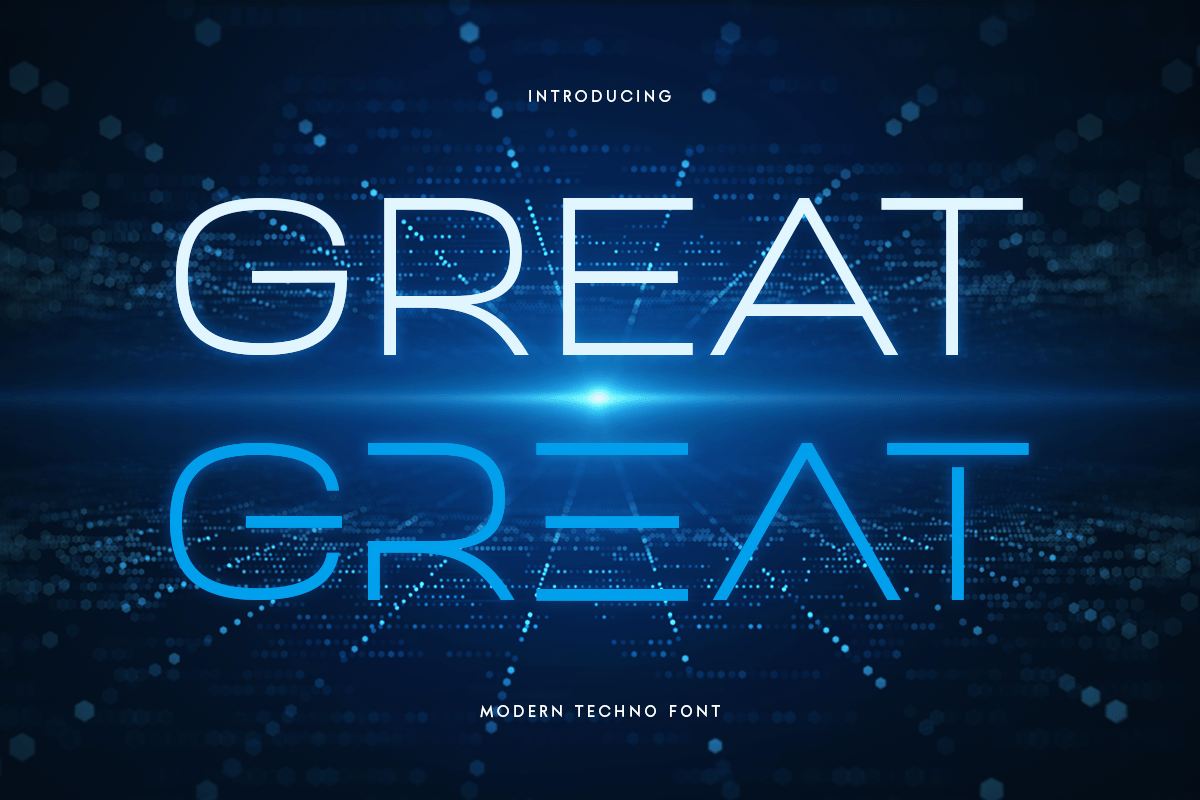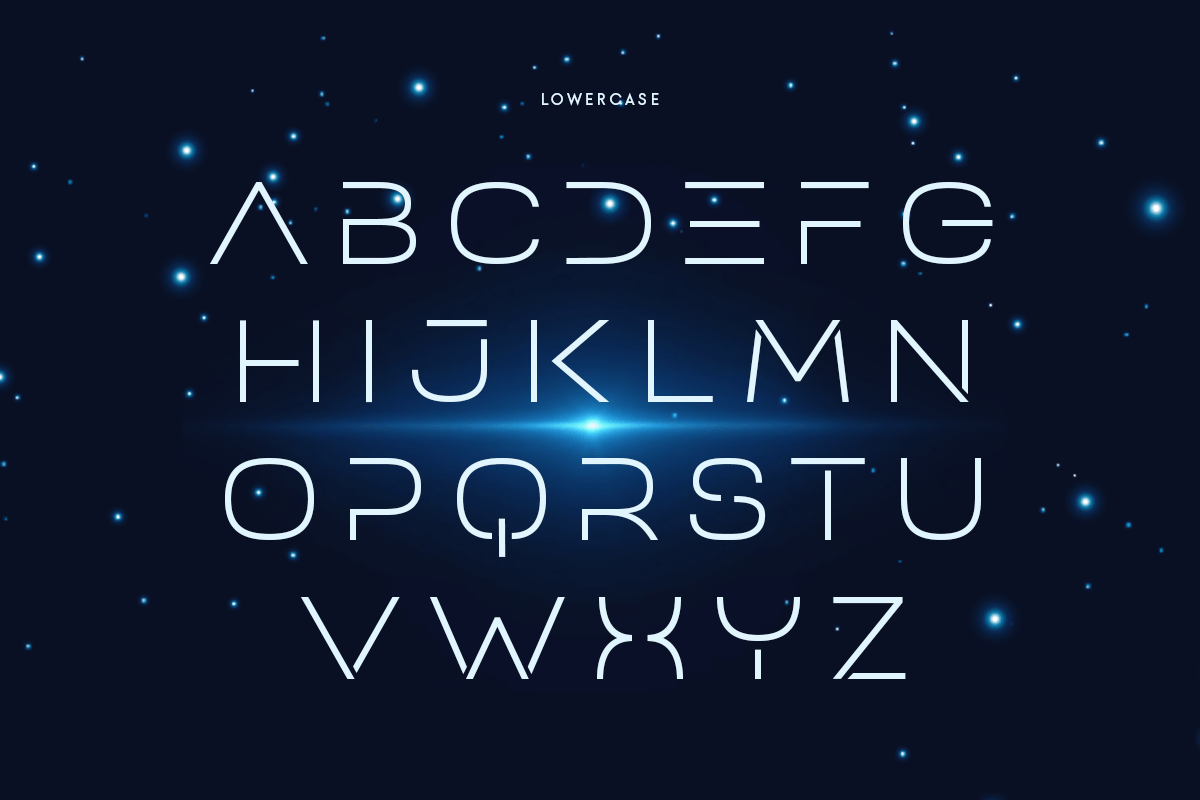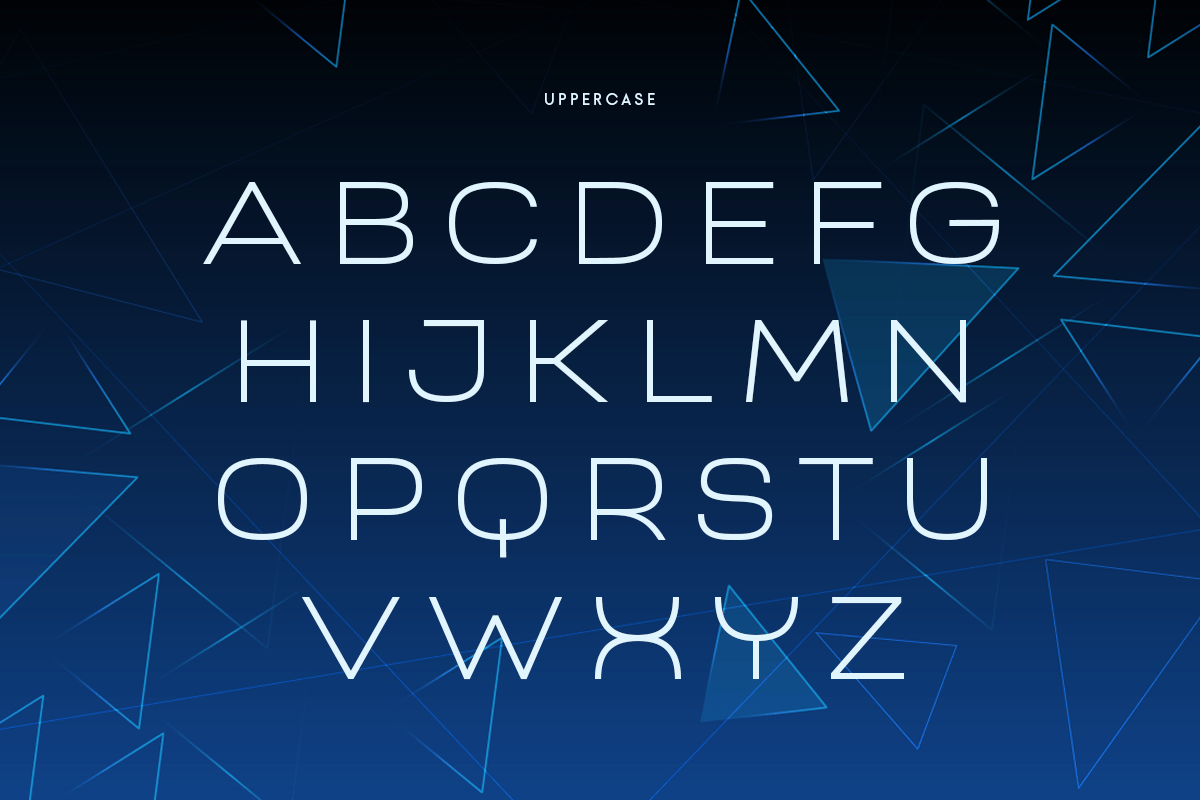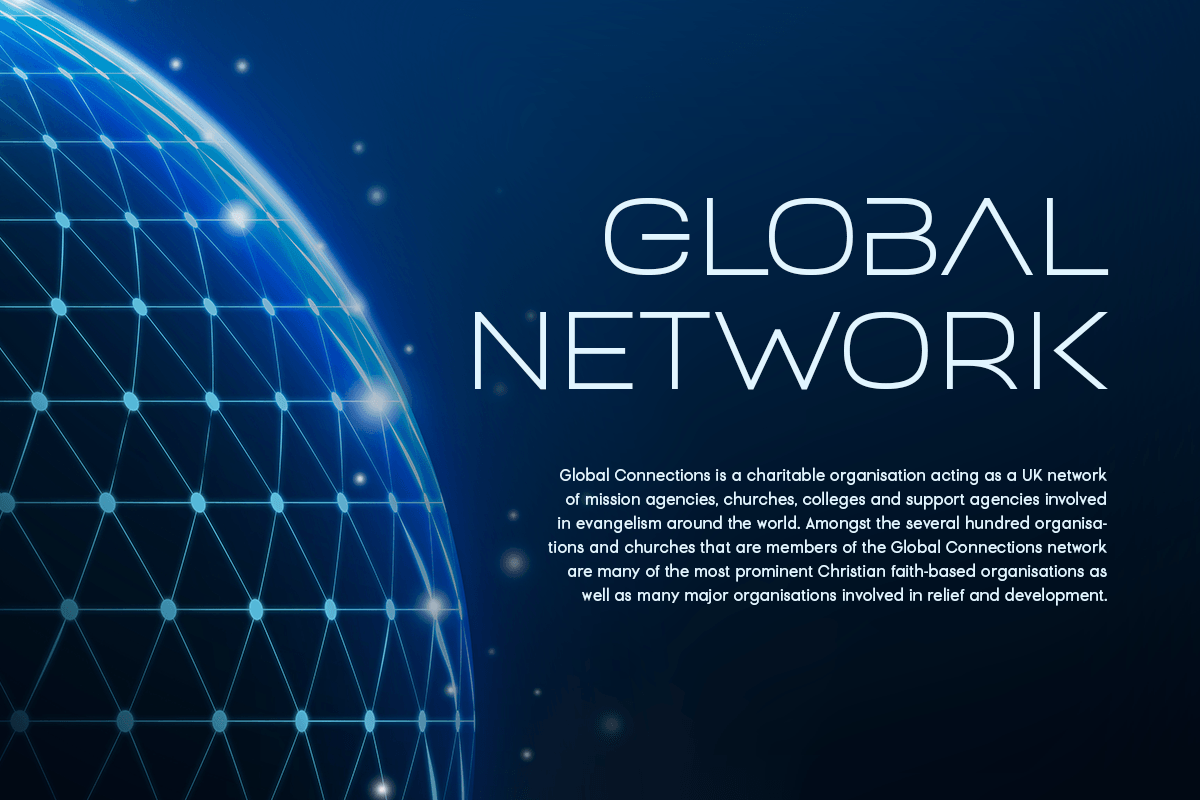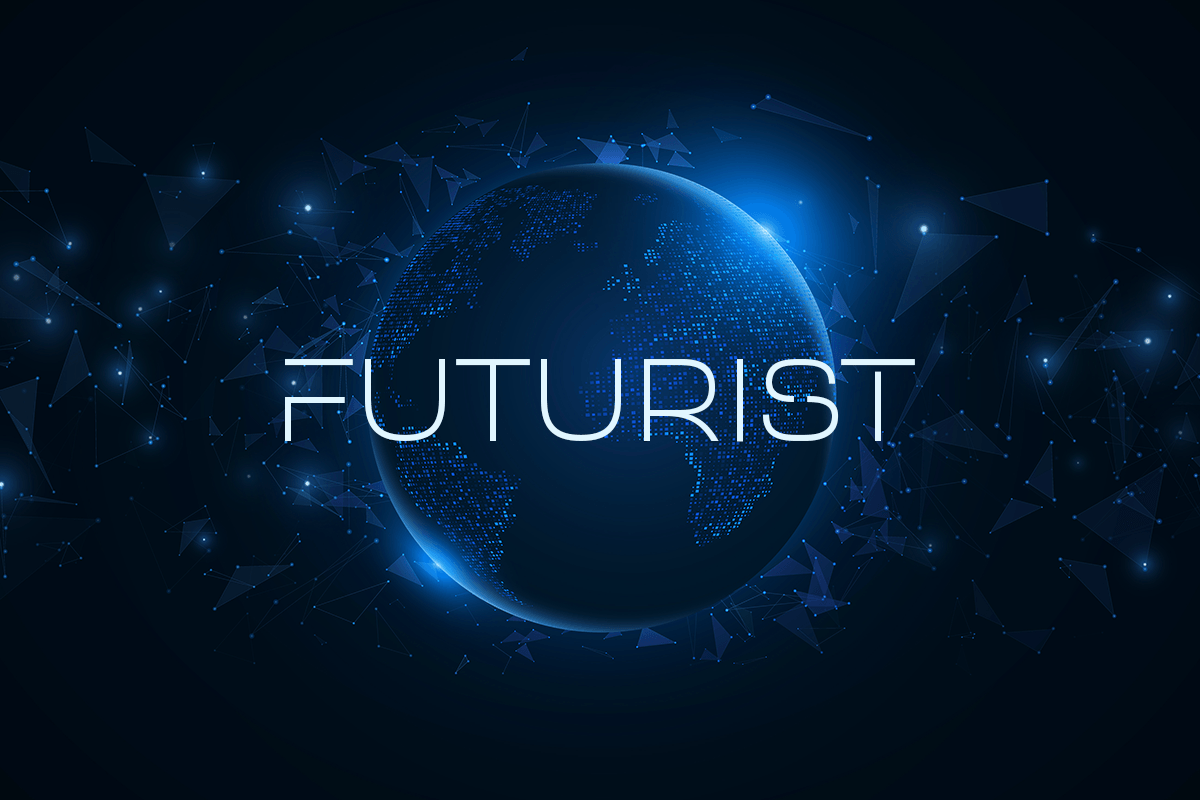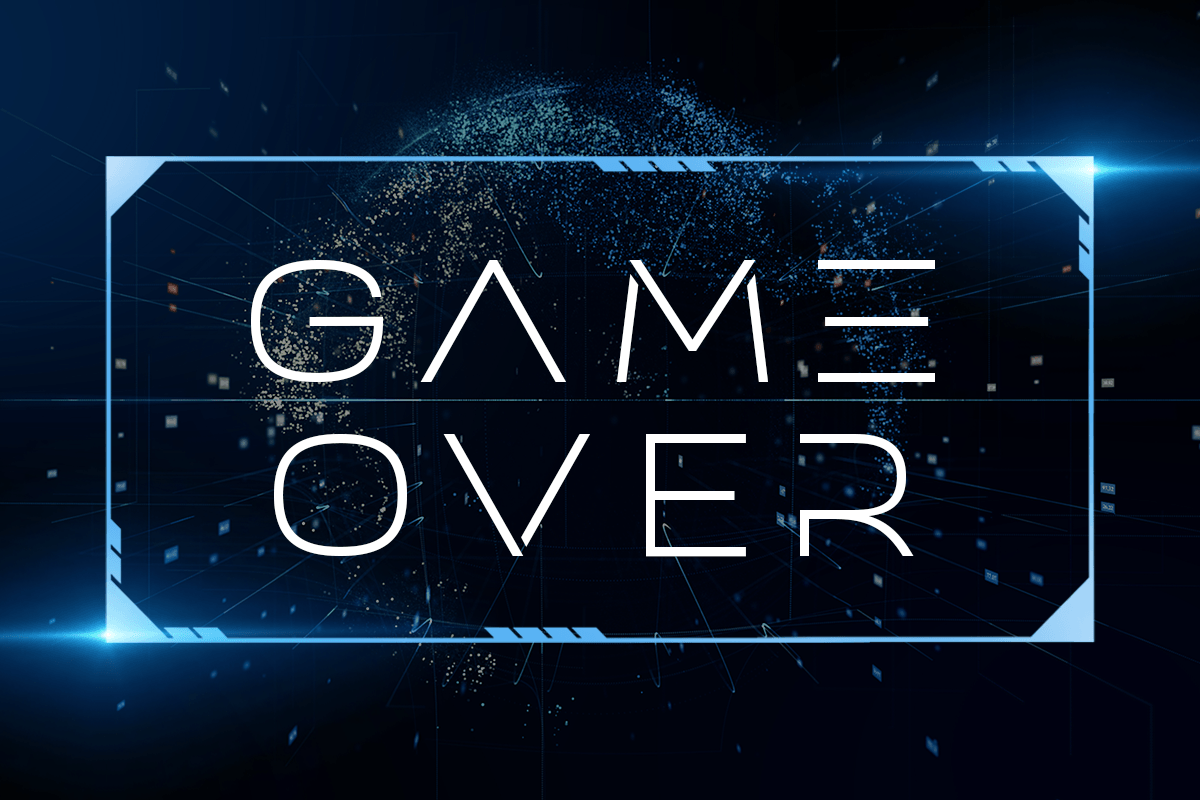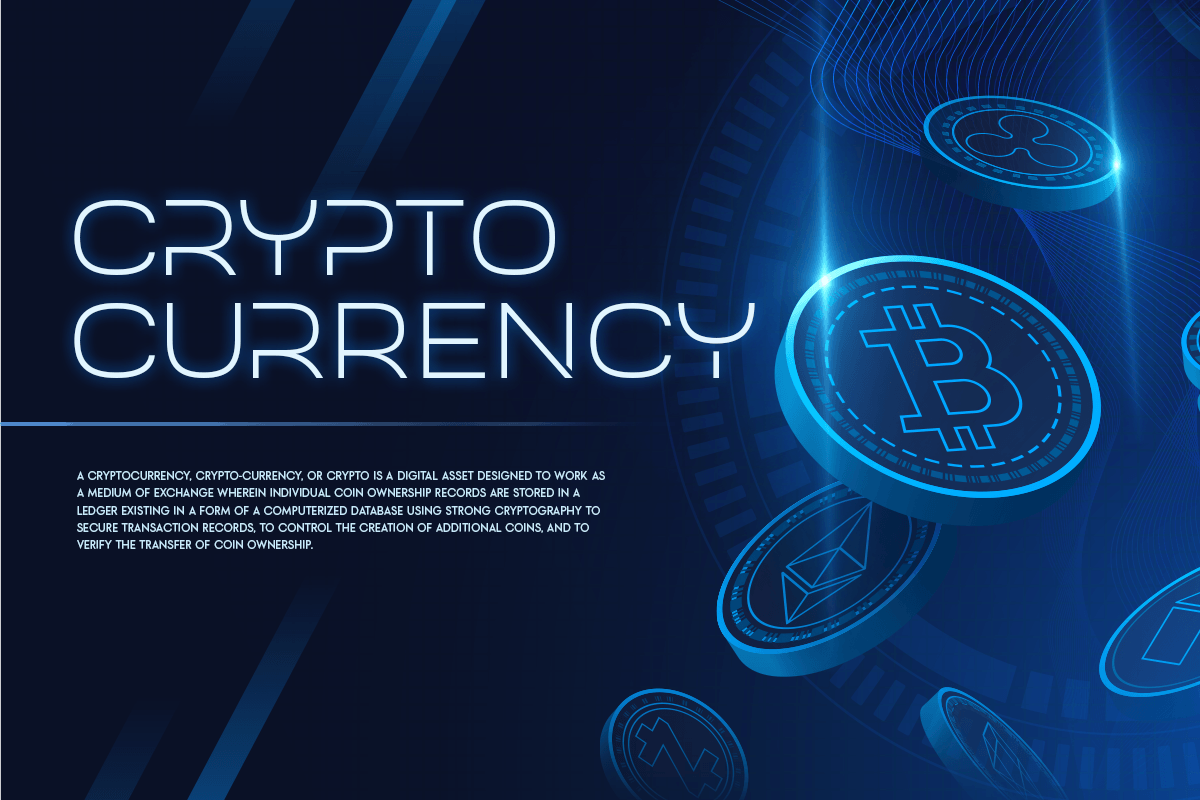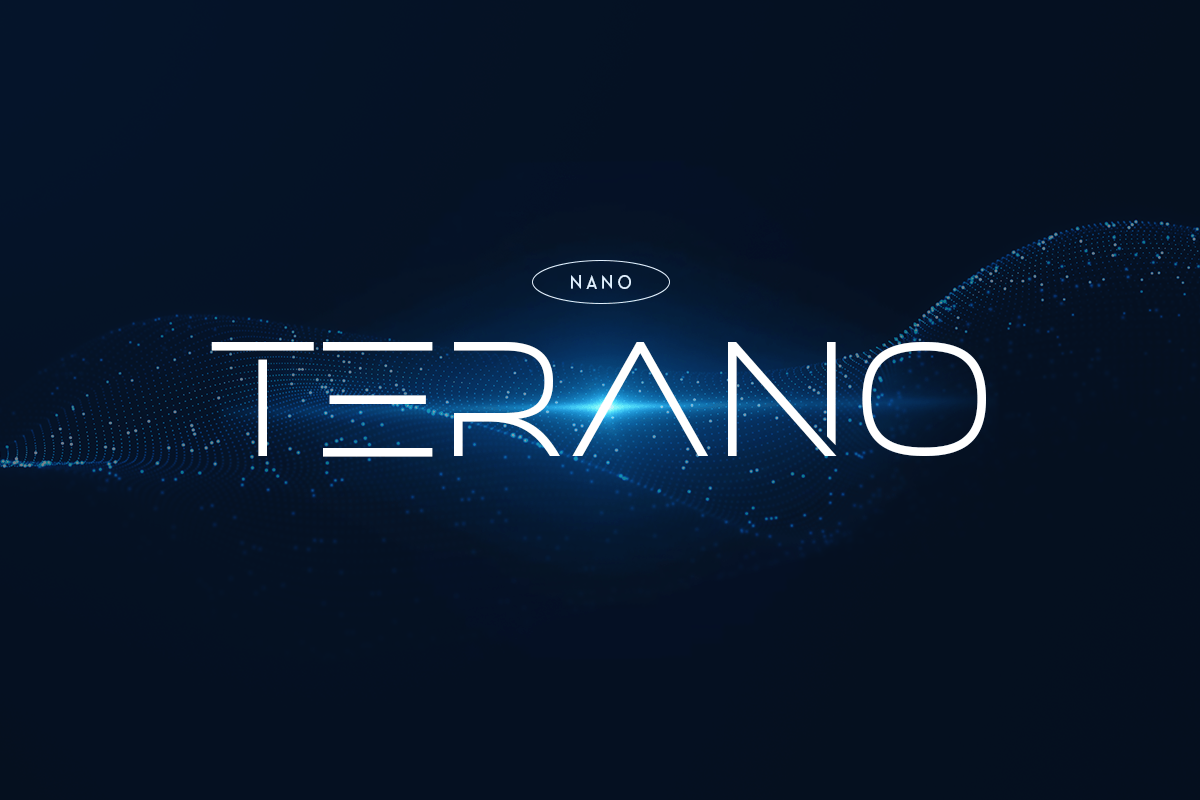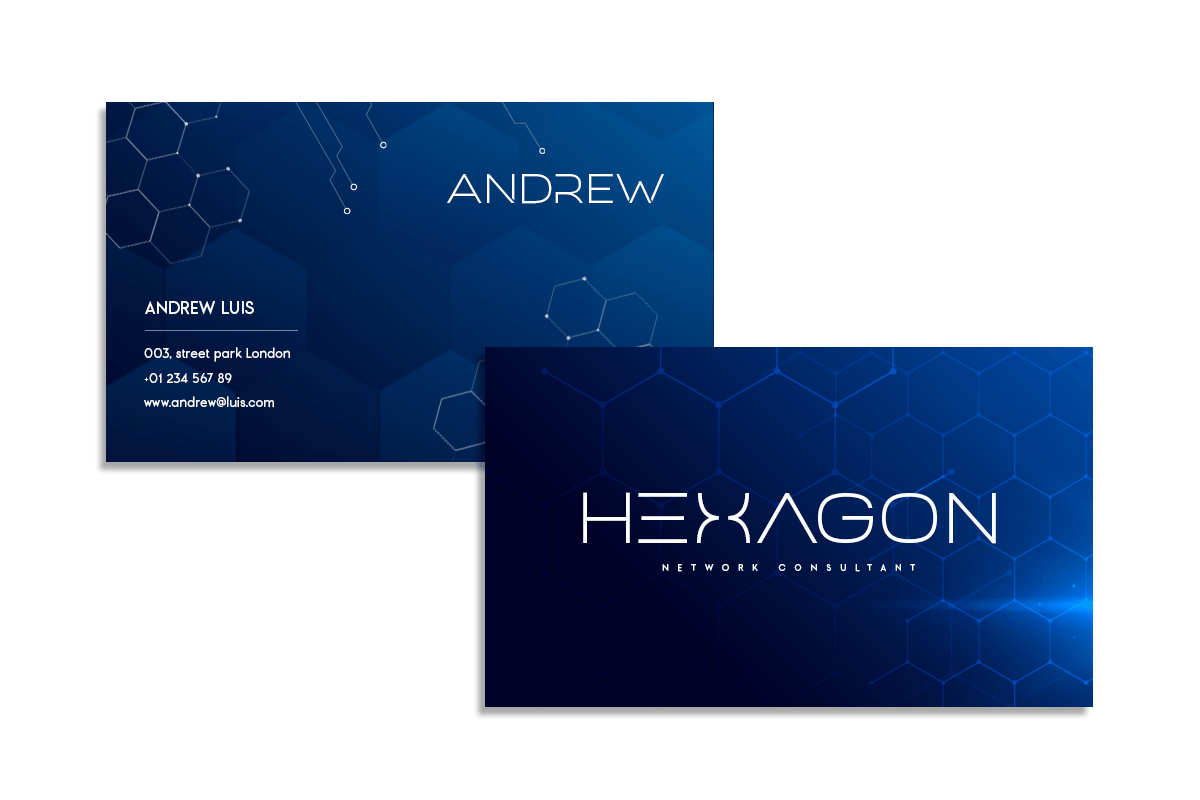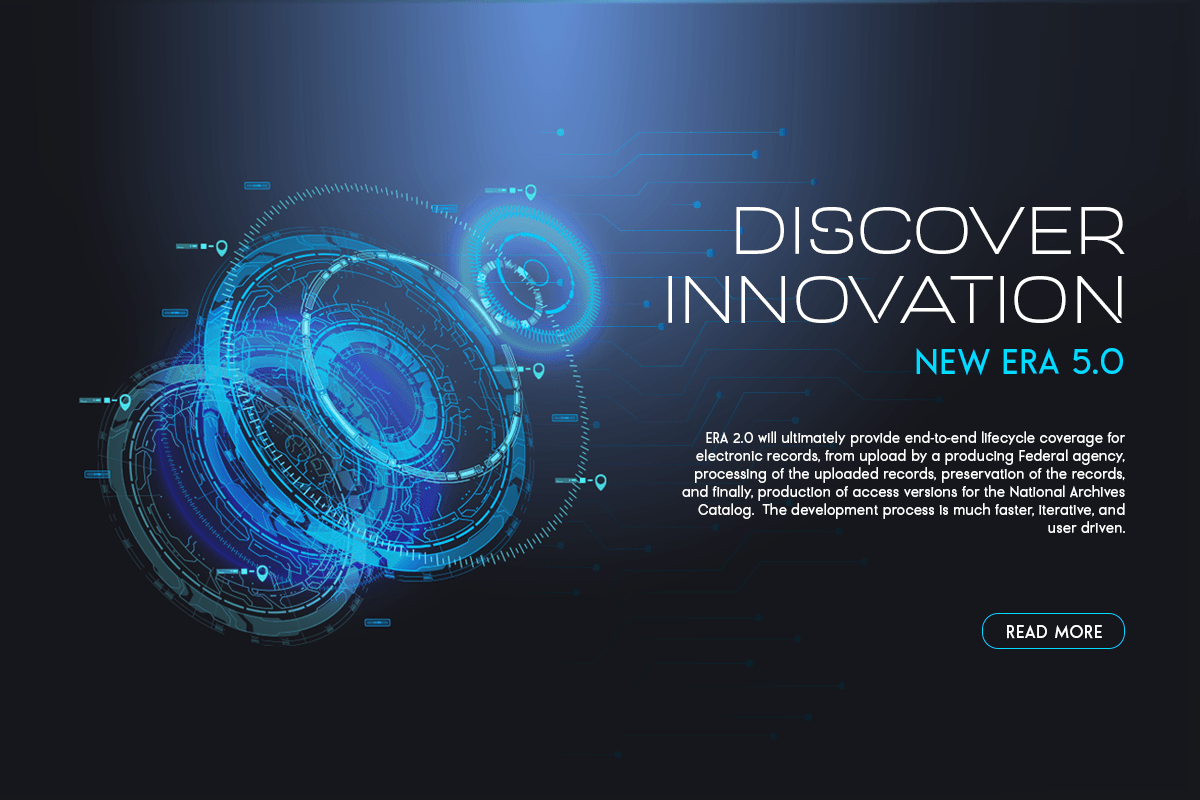
GREAT
-Modern Techno Font
GREAT is a Modern Techno font that created special for Logo, Title and more stand out typography needs, with extra alternative characters that look like a symbols. It's so perfect to add your style and headline overview for crypto currency, innovation, futuristic, and sci-fi theme. And specially for this font, we crafted for modern style and clean feels so enjoy to create any project that will show your main idea out.